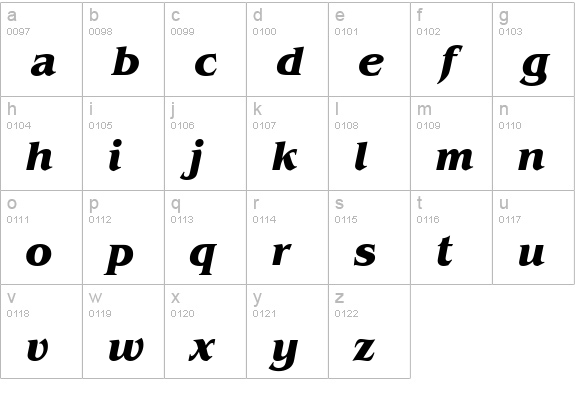
Benjamin-Bold-Italic Font Details
Benjamin-Bold-Italic is a strong, high-contrast, italic variant in the Benjamin typeface family \xE2\x80\x94 well suited to headlines, attention-grabbing titles, and strong calls-to-action.
The Benjamin-Bold-Italic font is a striking and sophisticated typeface that exudes elegance and modernity. Its bold and italic style makes it stand out from the crowd, perfect for adding a touch of flair to any design project. With its strong lines and distinctive curves, Benjamin-Bold-Italic commands attention and conveys a sense of strength and confidence. What's even better is that this stunning font is available for free download at FontsMarket.com. Whether you're working on a branding project, creating eye-catching posters, or designing a sleek website, Benjamin-Bold-Italic is sure to elevate your work to the next level. Don't miss out on this opportunity to enhance your designs with this exceptional typeface - download Benjamin-Bold-Italic for free today!